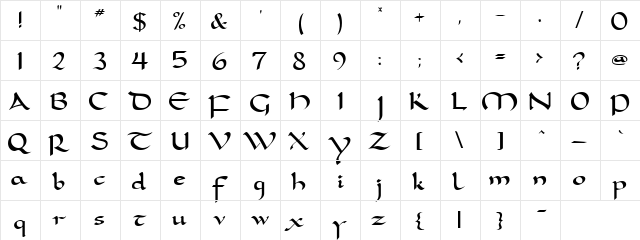
War Weapons Regular
Design Context for War Weapons Typeface
War Weapons is a composed and adaptable typeface that performs quietly and consistently across a wide range of design contexts.